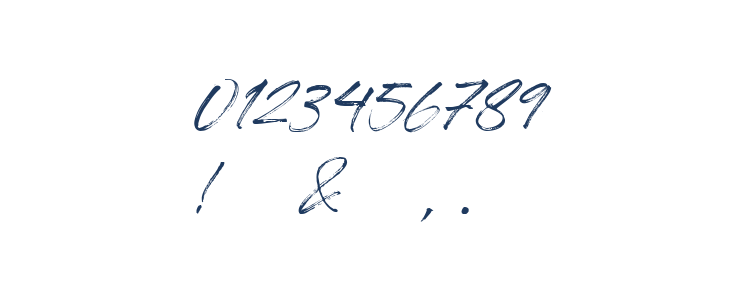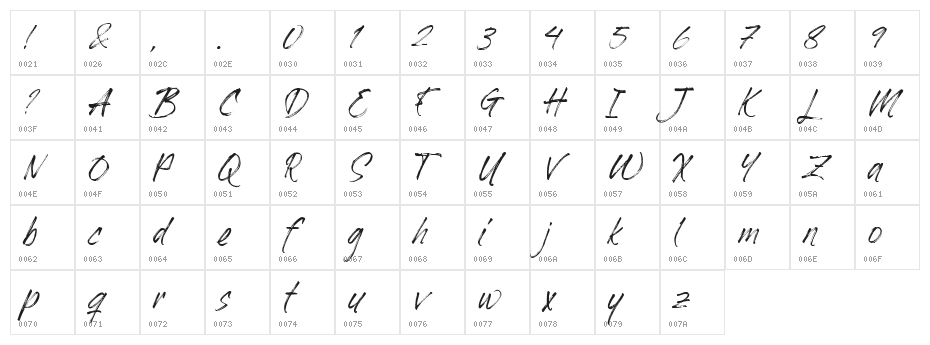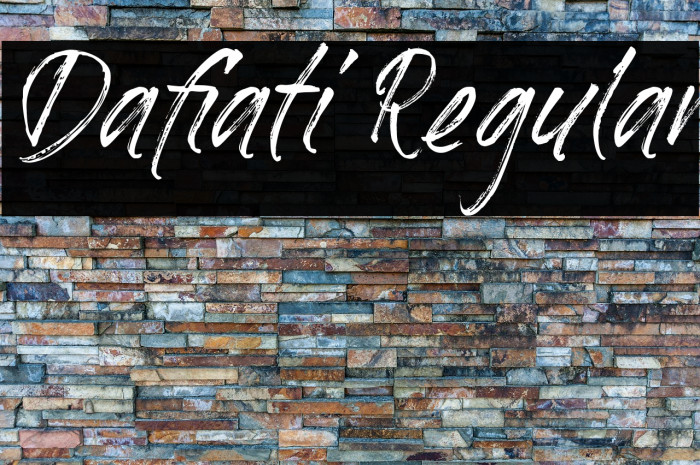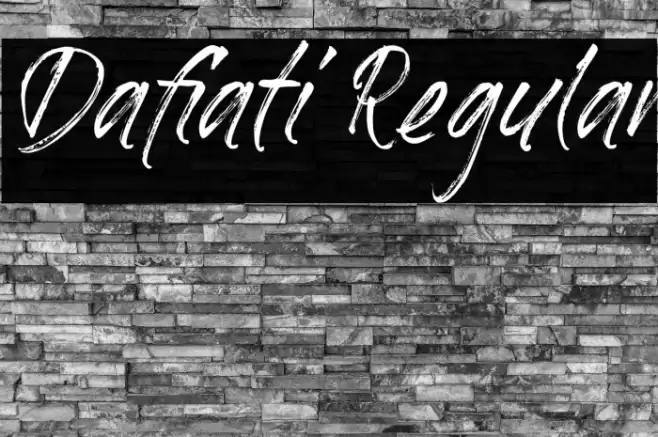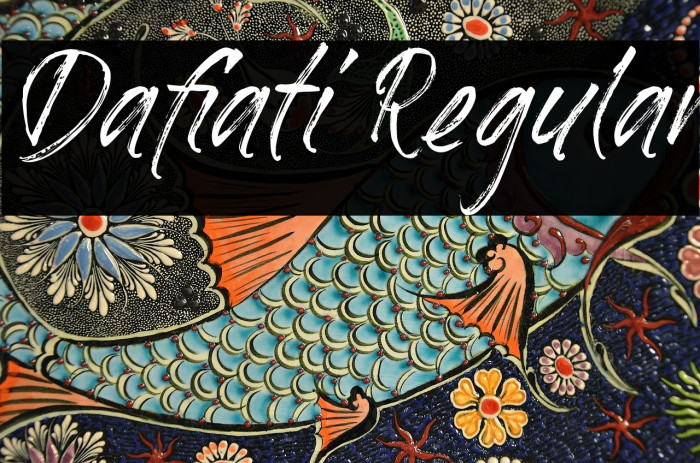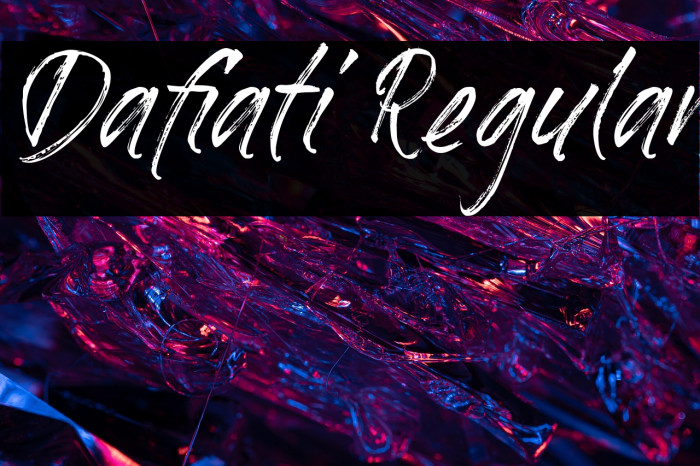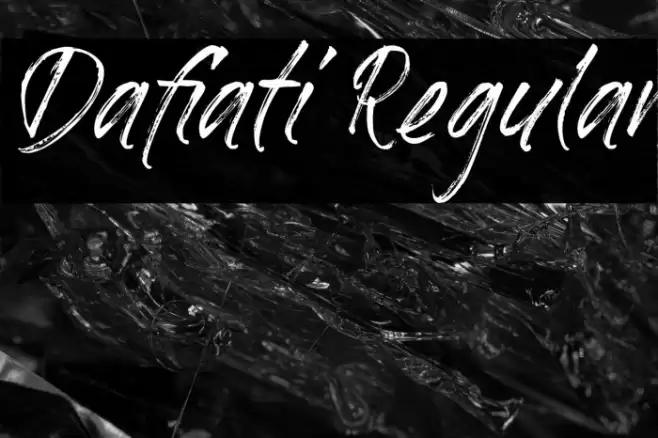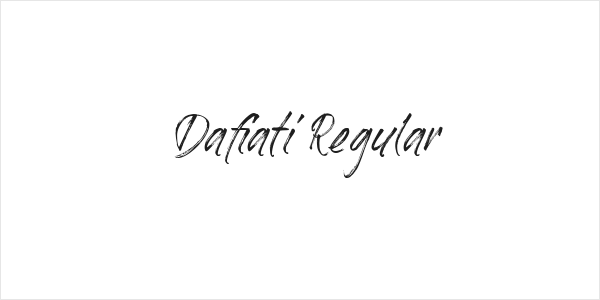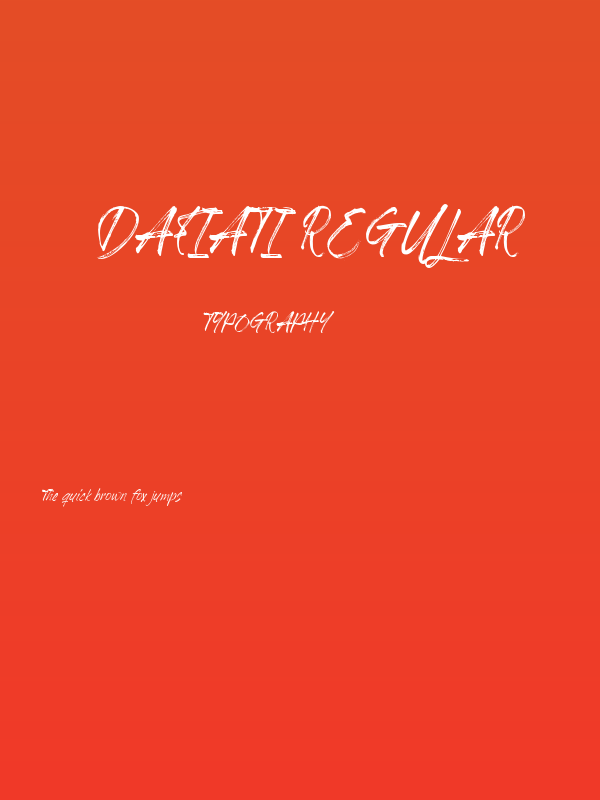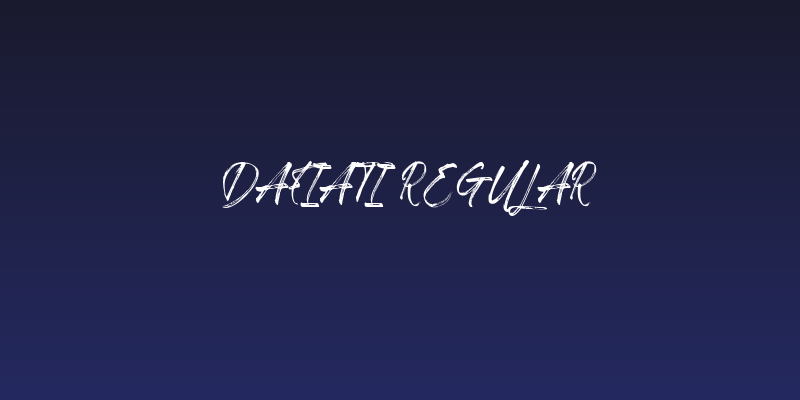
Dafiati Regular Font
Dafiati Regular Description
This font features a dynamic and expressive handwritten style, characterized by its bold and fluid strokes. The letters exhibit a natural flow, with varying thickness that adds a sense of movement and energy. The uppercase and lowercase letters maintain a consistent style, with a slightly slanted orientation that enhances its casual and artistic appeal. The numbers and special characters follow the same aesthetic, making the font versatile for creative projects. The brush-like texture gives it a raw and authentic feel, perfect for designs that require a personal touch.